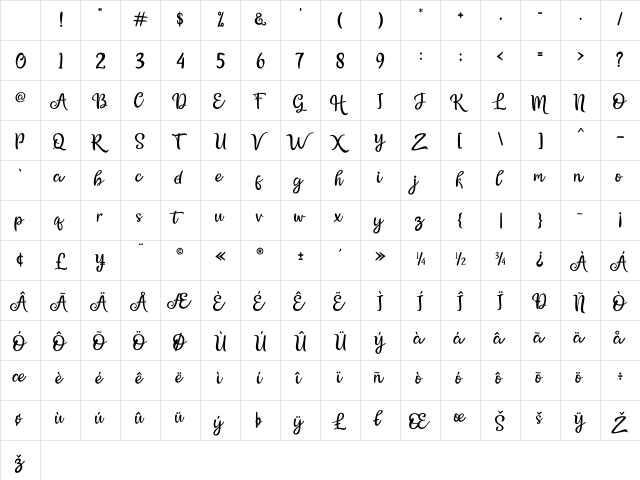
Complete Bellasya Regular glyph index. Displaying only characters natively supported by Bellasya Regular font.
Bellasya is a composed and adaptable typeface that performs quietly and consistently across a wide range of design contexts.